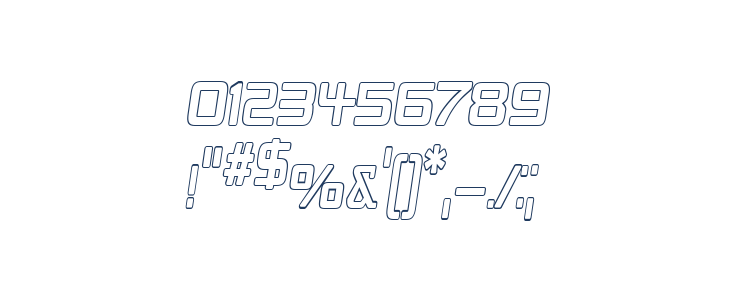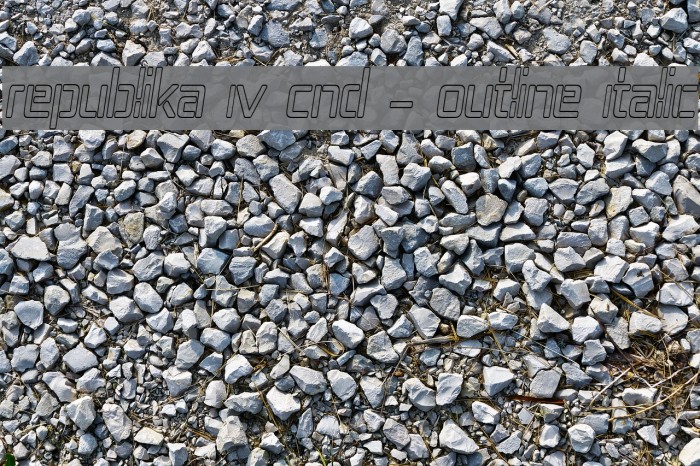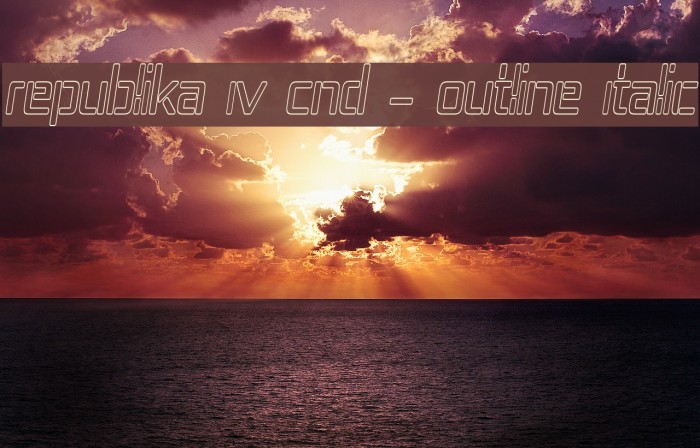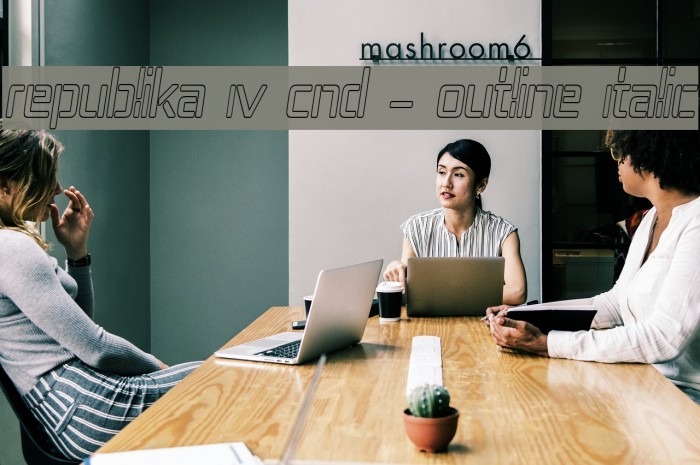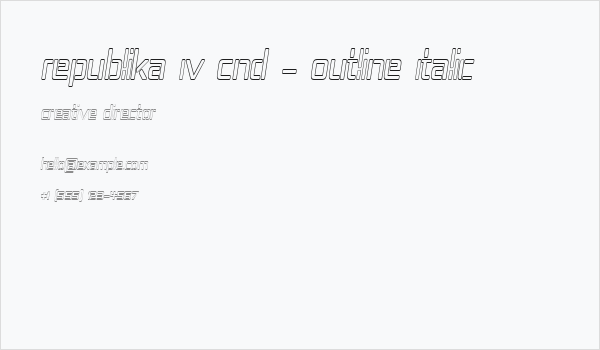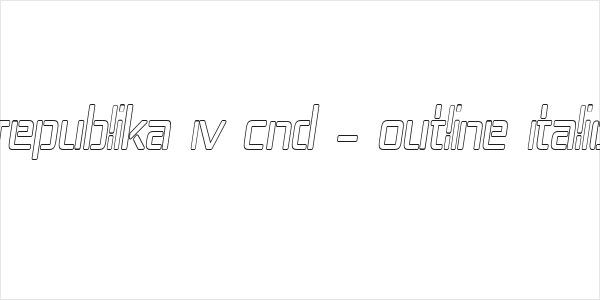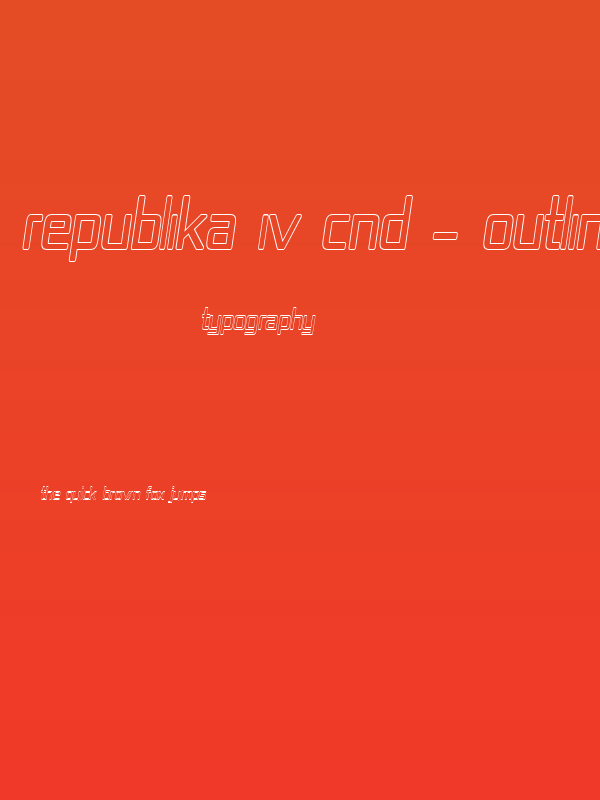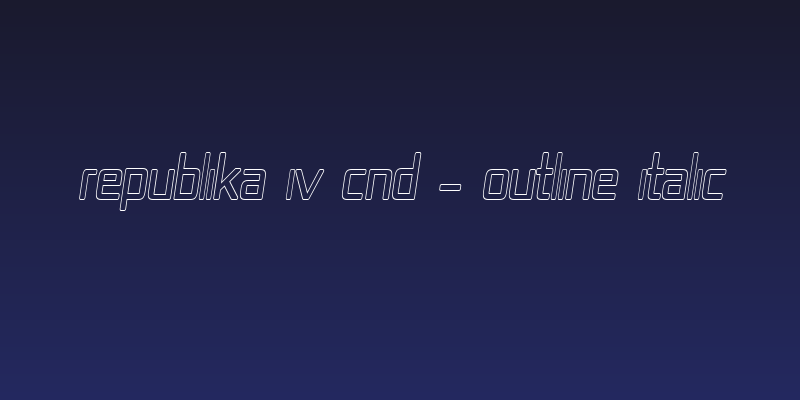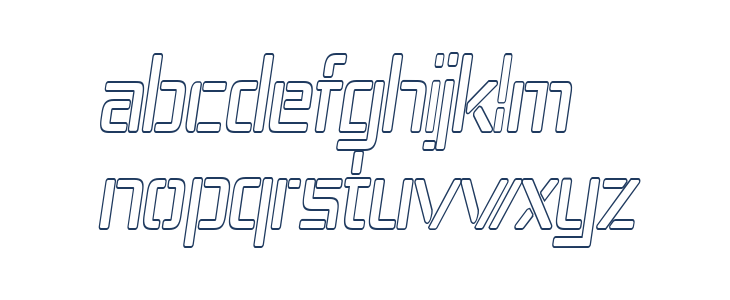
Republika IV Cnd - Outline Italic Font
Republika IV Cnd - Outline Italic Description
This font features a modern, geometric design with an outline style that gives it a unique, futuristic appearance. The characters are italicized, adding a dynamic and forward-leaning aspect to the text. The condensed width of the letters contributes to a sleek and compact look, making it suitable for space-conscious designs. The font's outline nature provides a hollow effect, allowing for creative layering and color usage in design projects. Its clean lines and uniform stroke width ensure readability while maintaining a distinctive style. The font is well-suited for projects that require a contemporary and innovative touch.
| Proposed Projects | Ideal for tech branding, futuristic posters, modern logos, and digital interfaces. |